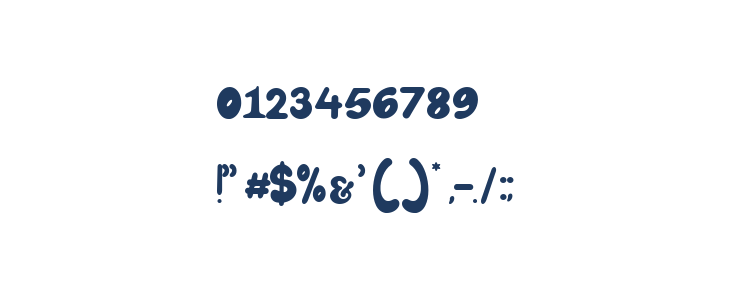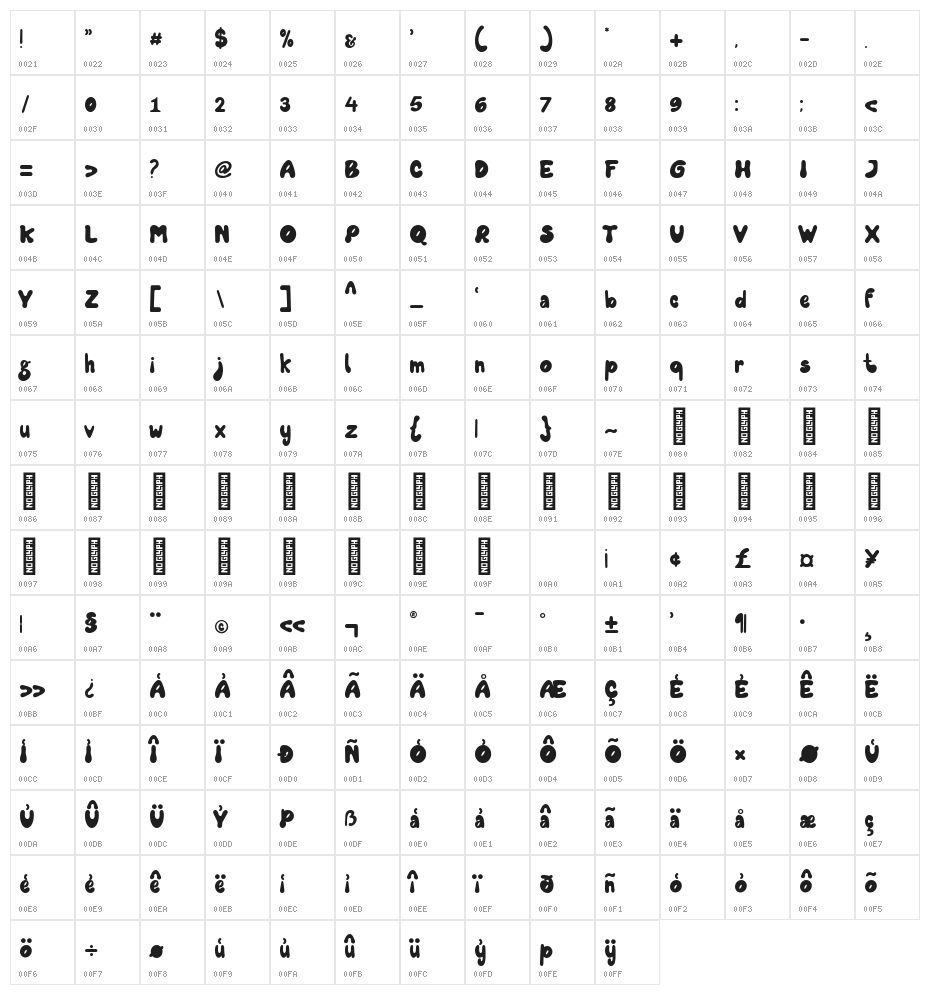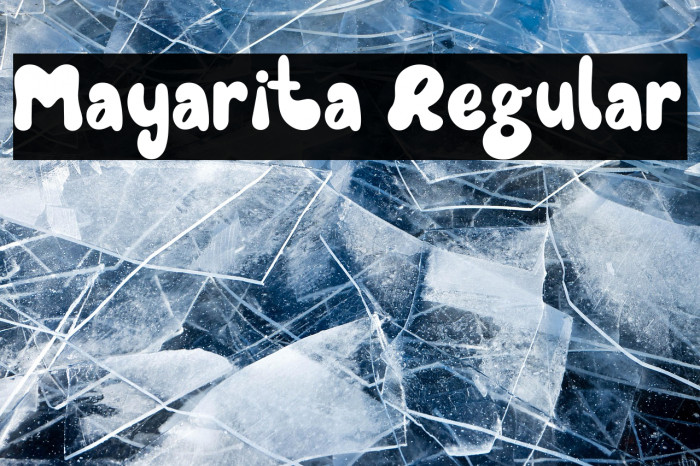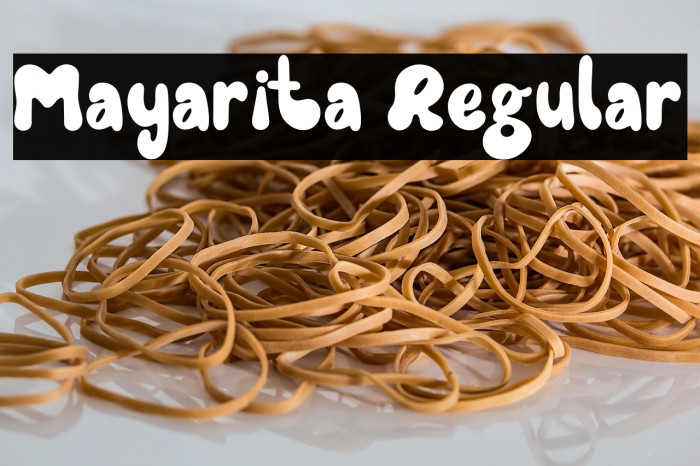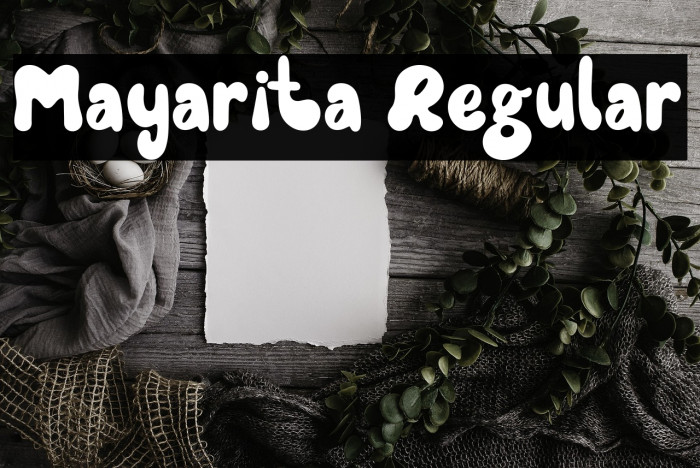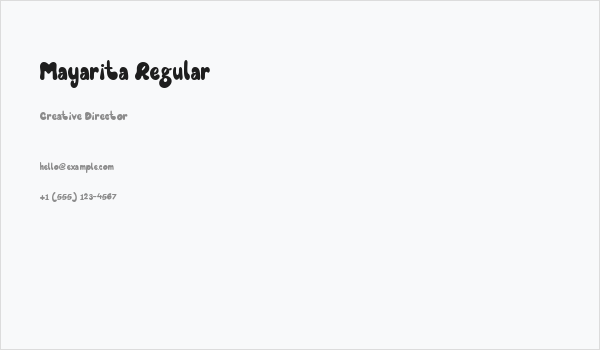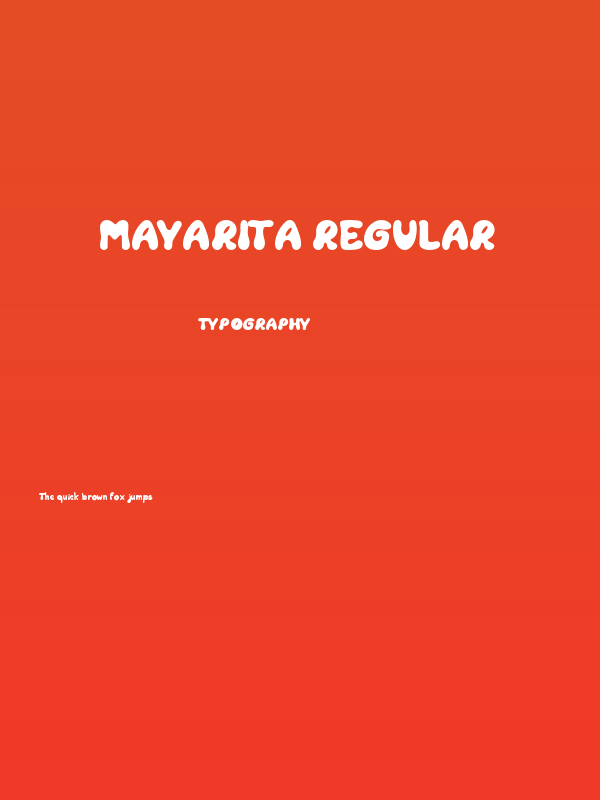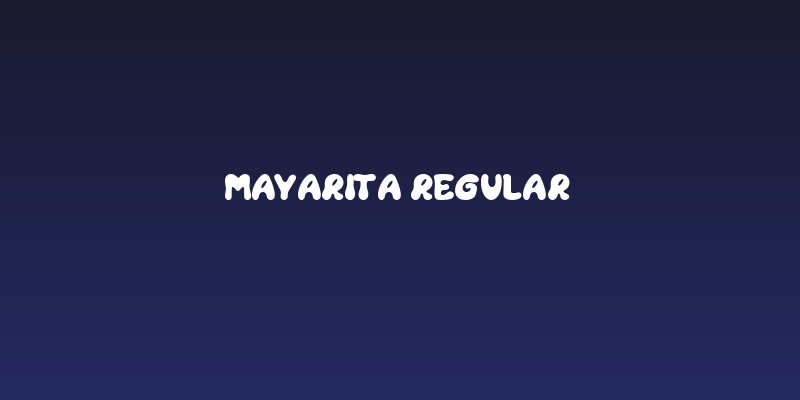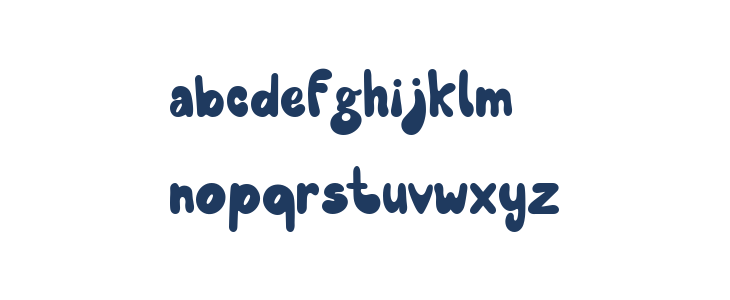
Mayarita Regular Font
Mayarita Regular Description
This font features a playful and bold design with rounded edges and a bubbly appearance. The characters are thick and have a consistent weight throughout, giving them a friendly and approachable look. The uppercase and lowercase letters maintain a uniform style, with slight variations in curvature that add a touch of whimsy. The numerals and special characters are equally bold and rounded, ensuring readability while maintaining the font's overall playful aesthetic. This font's unique style makes it suitable for projects that require a fun and informal tone.
| Proposed Projects | Ideal for children's books, playful branding, party invitations, and casual social media graphics. |